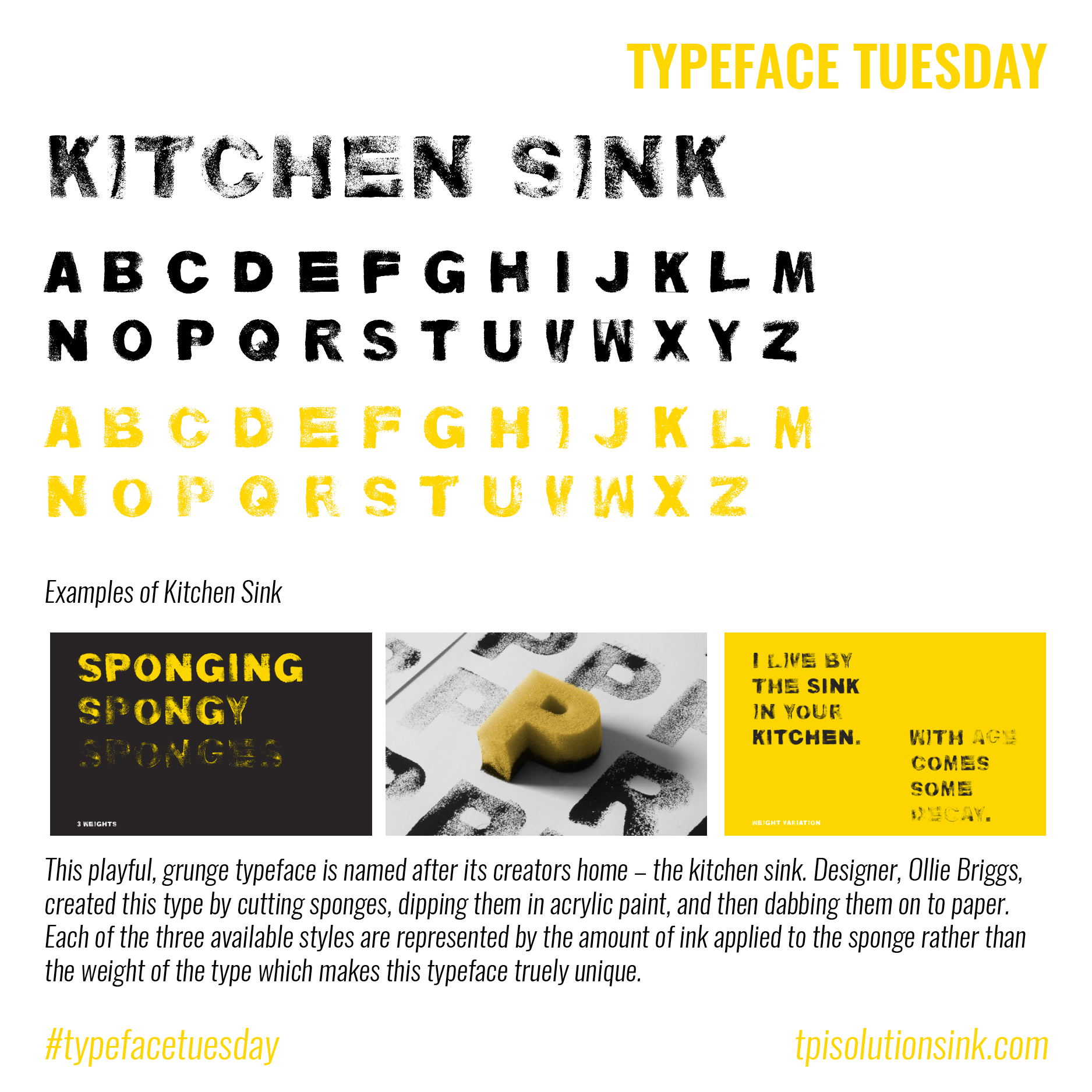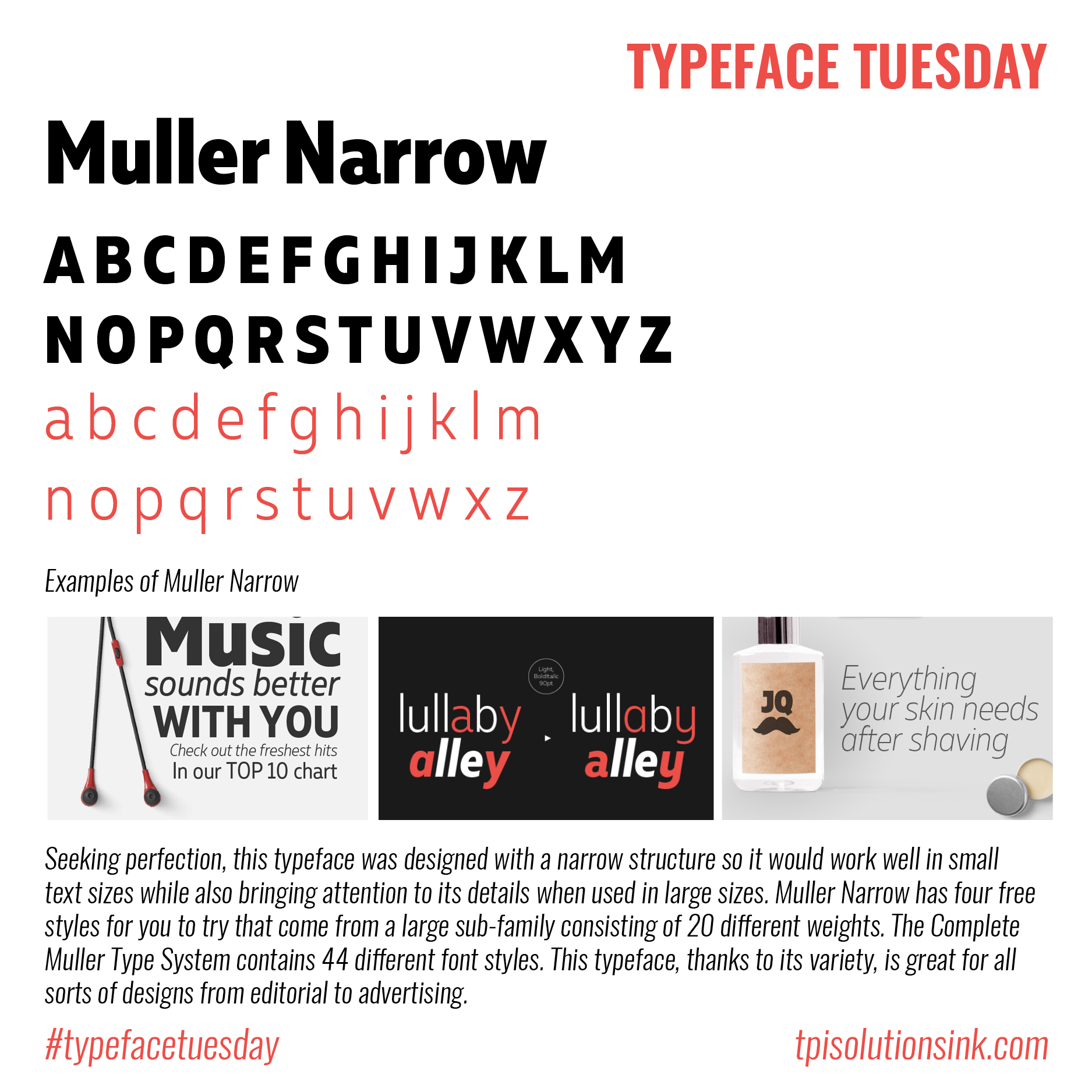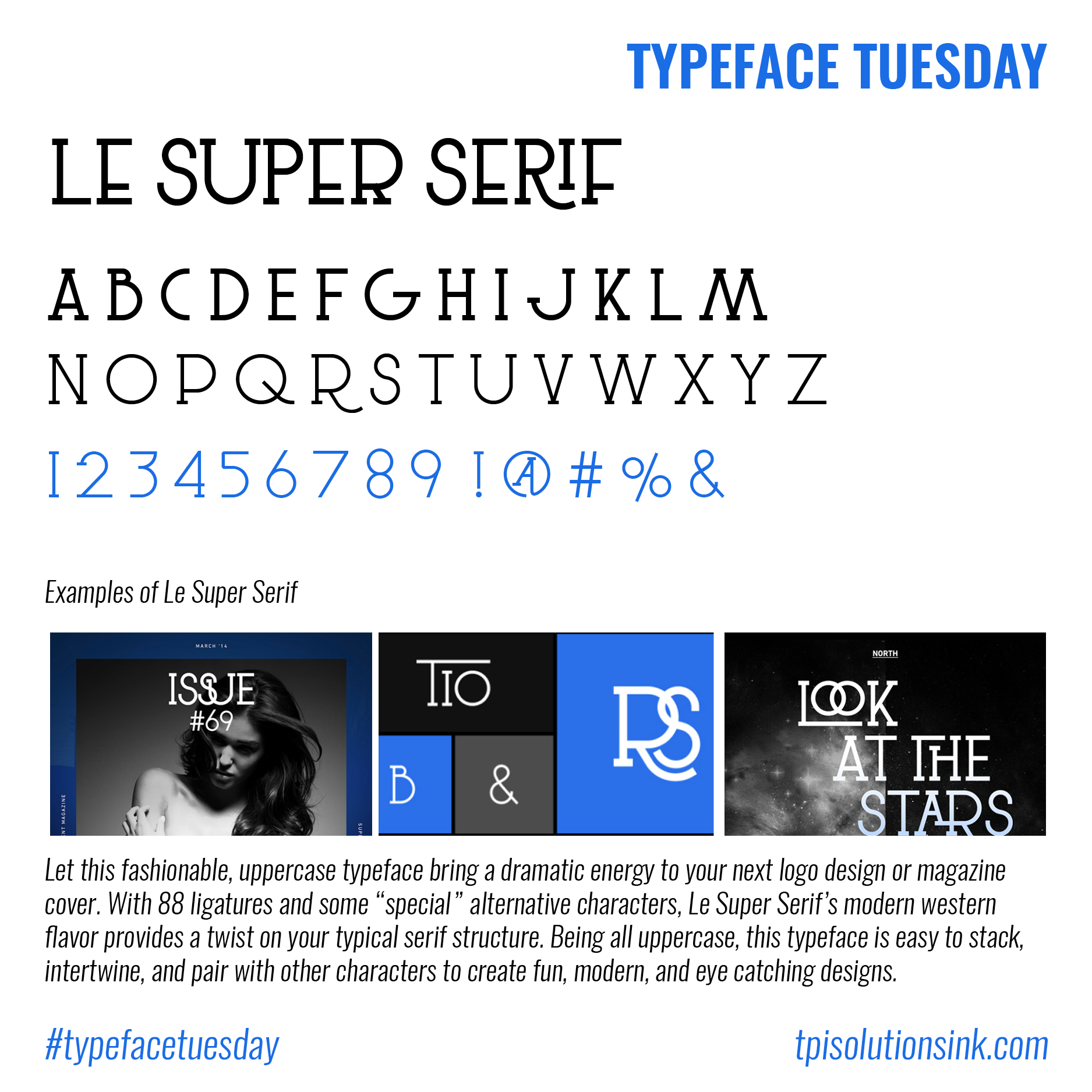
title: Typeface Tuesday Recap – September 2017
# Typeface Tuesday Recap – September 2017
Do you remember all these lovely typefaces from September? We've got everything from fashionable super serifs to the Kitchen Sink!